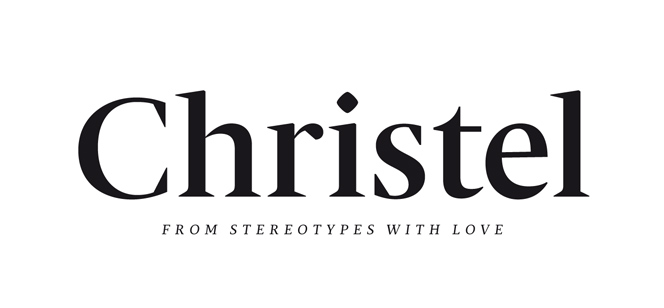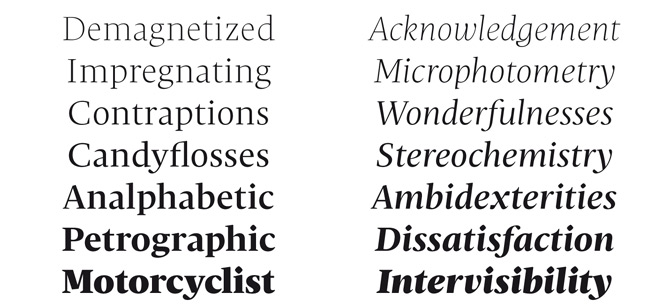
Christel font
Christel font is a serif family targeted to editorial design and all its diverse demands. With a total of 36 fonts inside it is probably one of the largest dedicated families. It has distinguished bespoke look with very specific original serifs giving a lot of charm and personality not only to the font itself but to your work as well. Christel is designed to vary in weight and size – it is an excellent solution if you have large text columns with small text size, cursive subheads with mid contrast or strong and majestic serifed headlines. Poor print conditions or low screen resolution are things that you will no longer be afraid of – Christel is obviously optimized to fight them both so you could easily use it for different print publications and regardless the print media achieve best results. Nowadays you could use it with great success for e-books, web-sites or other screen applications.
Christel is charged with a lot of OpenType extra characters supporting stylistic and contextual alternates, standard and discretionary ligatures, fractions, different numbers options and of course a lot of multilingual support. With the total of 36 fonts including beautiful original italics and its remarkable OpenType support Christel is one of those serif families that you will easily addict to in your work. Its strong yet elegant and classy presence will leave you enough room for your creativity preserving the benefits from using the font at the same time.
Christel font family is created by Sascha Timplan and published by Stereotypes.